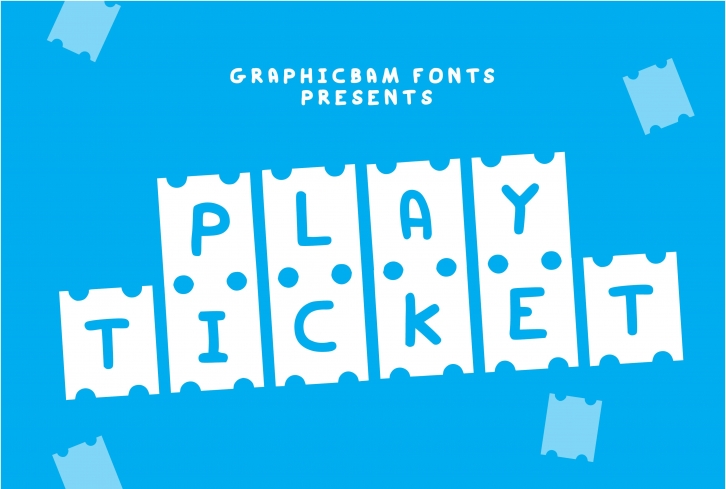
Play Ticket is an incredibly cool and interestingly designed decorative font. Whether you’re using it for crafting, digital designing, presentations or greeting cards making, it’s perfect!Â